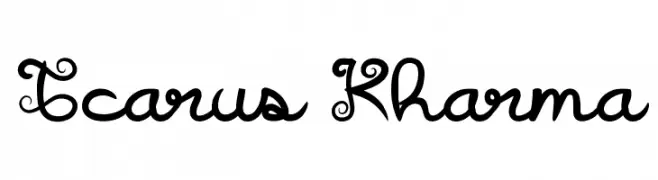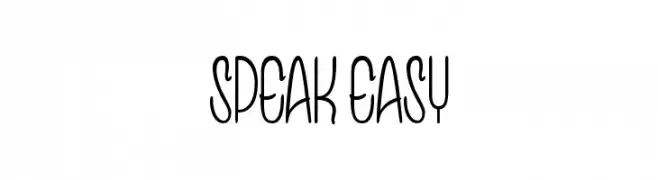
• The Cinthia Edito
A bold, flowing script font with elegant, cursive letterforms.
• Icarus Kharma
A whimsical, decorative font with intricate swirls and loops.
• Rhum Banane
A bold, playful font with rounded edges and a slightly condensed style.
• Kilowatts
A dynamic and elegant script font with smooth connections and stylish flair.
• Snow For Santa
A bold, festive font with snow-themed decorations on rounded characters.
• Sliced by Hand
A dynamic, hand-drawn calligraphic font with fluid, expressive strokes.
• Bichette
A dynamic and flowing script font with elegant curves and smooth transitions.
• Shadow Boxing
A bold, playful script font with decorative, looping strokes.
• Speak Easy
A playful, elongated font with smooth, narrow letterforms.
• Wind of Change
Intricate and decorative flourishes with vintage calligraphic style.